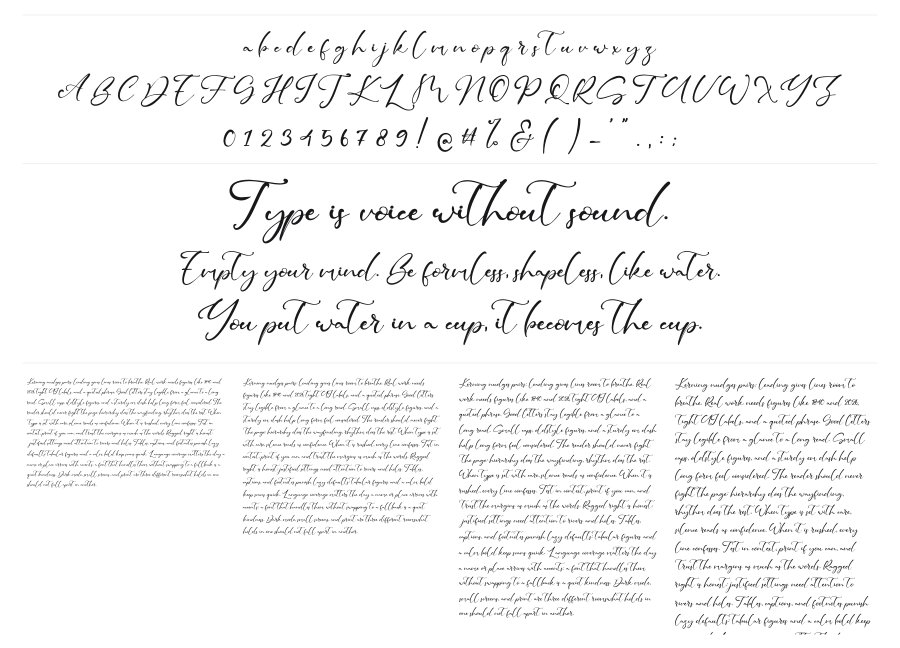
Gillian Rode
Gillian Rode is a modern calligraphy script with expressive swashes, looping ascenders, and strong stroke contrast between thick and hairline strokes. The letters flow with a loose, hand-lettered energy that feels both polished and personal. It suits wedding stationery, branding, and packaging where a romantic, handcrafted touch is needed.